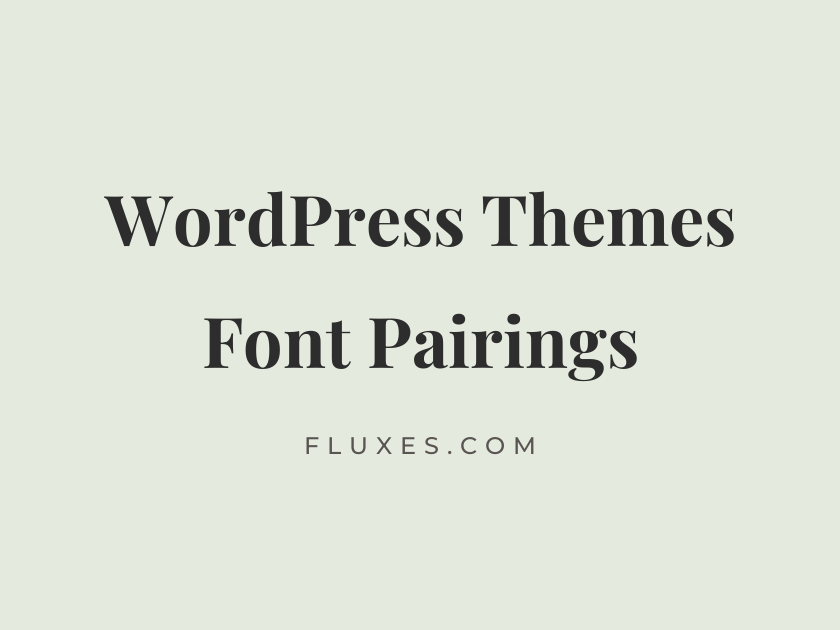
36 Best Font Pairings for WordPress Themes
Choosing font pairings for a WordPress theme comes down to matching contrast with restraint: a display face that gives headlines personality, and a text face that keeps paragraphs readable at small sizes across devices. The combinations below cover blogs, business sites, portfolios, magazines, and online stores, and every pairing uses fonts that are free on Google Fonts, so you can drop them straight into a theme’s typography settings.
1. Playfair Display + Noto Sans
The high-contrast strokes of Playfair Display give it an editorial voice, while Noto Sans’s plain, even letterforms disappear into the background where they belong. This is a dependable choice for blogs and magazine themes that need a literary headline over long-form text.
2. Montserrat + Merriweather
Montserrat’s geometric confidence works as a strong counterpoint to Merriweather’s sturdy, screen-optimized serifs. The pairing suits corporate and consulting sites where headlines need to feel current but paragraphs still need to read comfortably.
3. Oswald + Lato
Oswald’s condensed width lets headlines carry weight without eating up vertical space, which is exactly what news and magazine themes need. Lato’s neutral, humanist shapes keep the body text from competing for attention.
4. Abril Fatface + Josefin Sans
Abril Fatface is unapologetically theatrical, so it needs a body font with equally deliberate proportions rather than a purely utilitarian one. Josefin Sans, with its geometric, art-deco-inflected letters, matches that mood while staying legible at smaller sizes, making the combination a favorite for portfolio and fashion themes.
5. Raleway + PT Serif
Raleway’s thin, elegant weights read as sophisticated at large display sizes but can thin out awkwardly in long paragraphs, so pairing it with the sturdier PT Serif for body text solves that problem. Business and agency themes benefit from this split of polish above and reliability below.
6. Cormorant Garamond + Nunito Sans
Cormorant Garamond’s delicate, high-contrast letterforms feel handwritten and formal at once, ideal for wedding, boutique, or event themes. Nunito Sans keeps the supporting copy warm and approachable so the page never feels stiff.
7. Bitter + Open Sans
Bitter was built as a slab serif for screens, so it holds up well at headline sizes without losing character. Open Sans is about as safe a body font as exists on Google Fonts, and that dependability is precisely what makes the pairing work for everyday blogging themes.
8. Libre Baskerville + Work Sans
Libre Baskerville was designed specifically for on-screen reading, and its slightly larger x-height carries through nicely to headline sizes. Work Sans, with its clean, low-contrast strokes, gives publishing and review themes a body font that won’t fight for the reader’s attention.
9. DM Serif Display + DM Sans
These two share a superfamily, so their proportions, spacing, and overall rhythm already agree before you even set them side by side. It is one of the simplest ways to get a cohesive look for a design studio or creative agency theme.
10. Space Grotesk + Inter
Space Grotesk has just enough quirk in its letterforms to feel like a tech product without tipping into novelty, and Inter was engineered from the ground up for UI legibility. Together they are a near-default choice for SaaS landing pages and startup themes.
11. Crimson Text + Work Sans
Crimson Text carries an academic, book-like quality that suits reflective or long-form writing. Work Sans underneath keeps the reading experience light, so the page doesn’t feel overly formal on mobile screens.
Limit a WordPress theme to two typefaces plus, at most, one monospace accent for code or labels. More than that tends to make a site feel unplanned rather than intentional.
Test pairings at the sizes they will actually appear on the site, including mobile breakpoints, since some display fonts lose their charm below 24 pixels.
When in doubt, choose a body font first for its readability, then find a heading font that contrasts in weight or style but shares a similar mood or era.